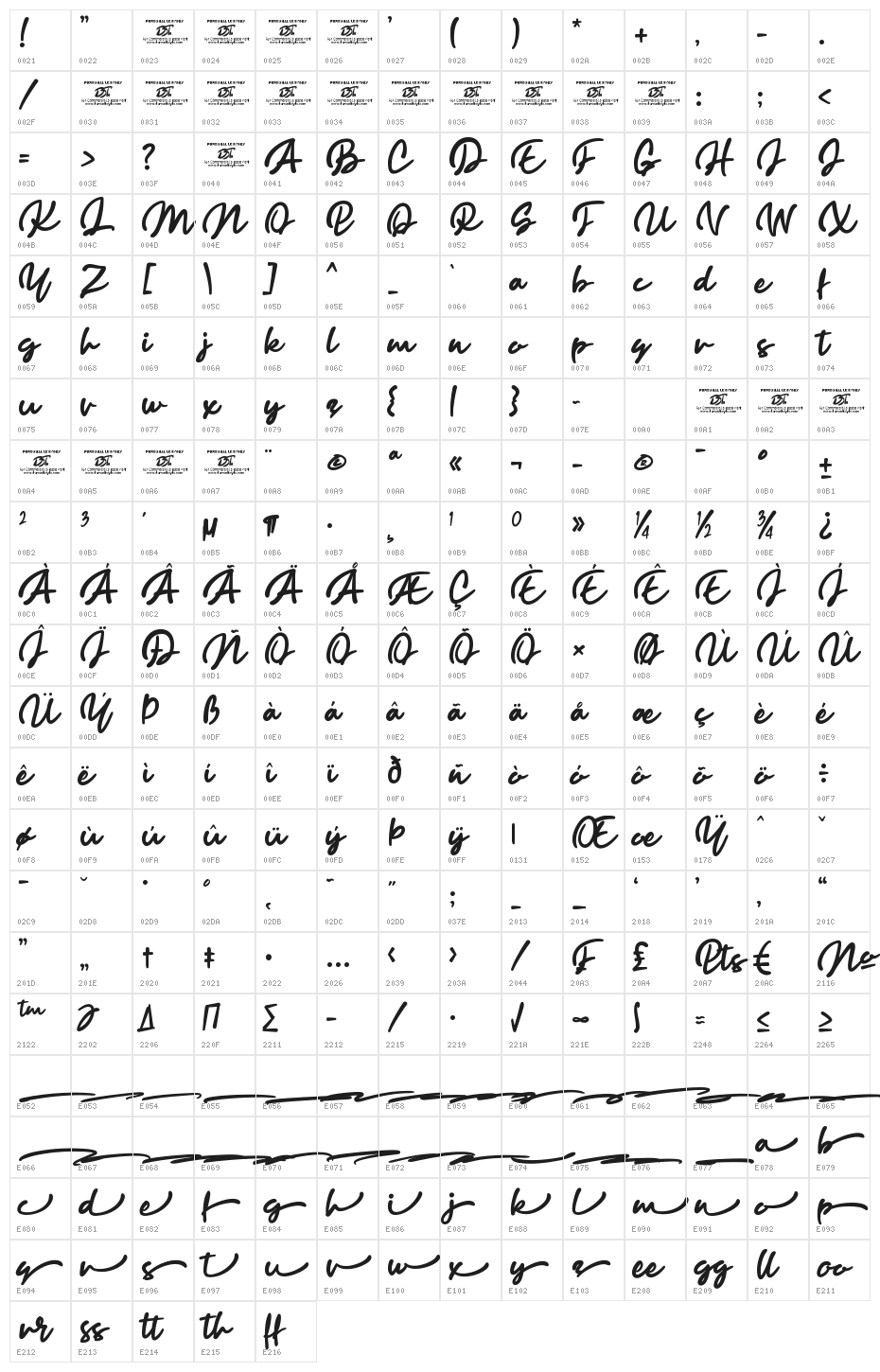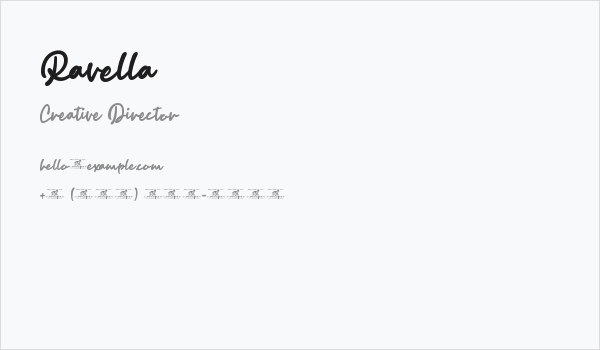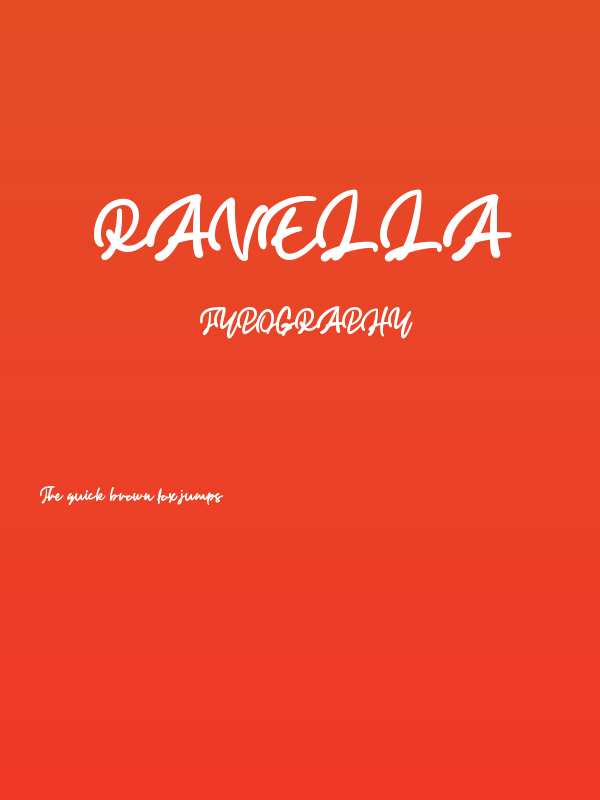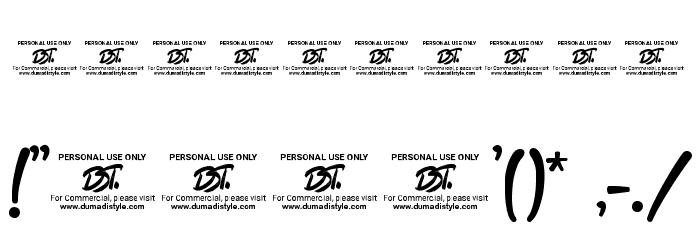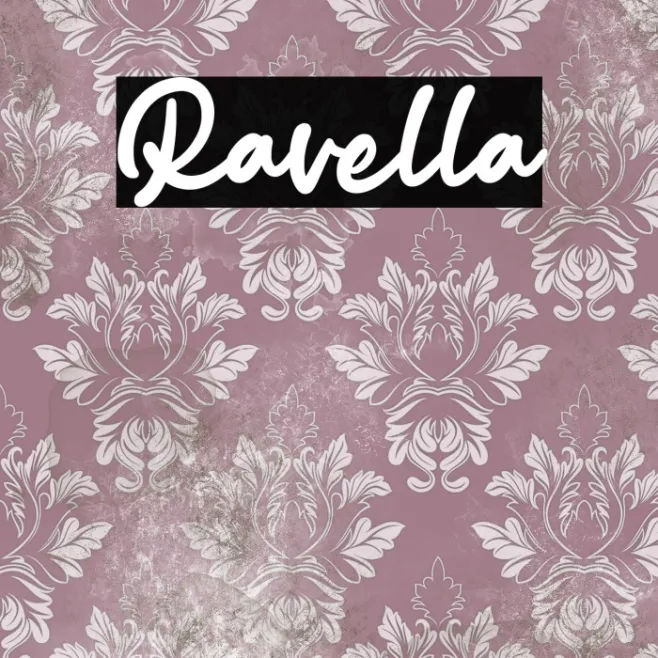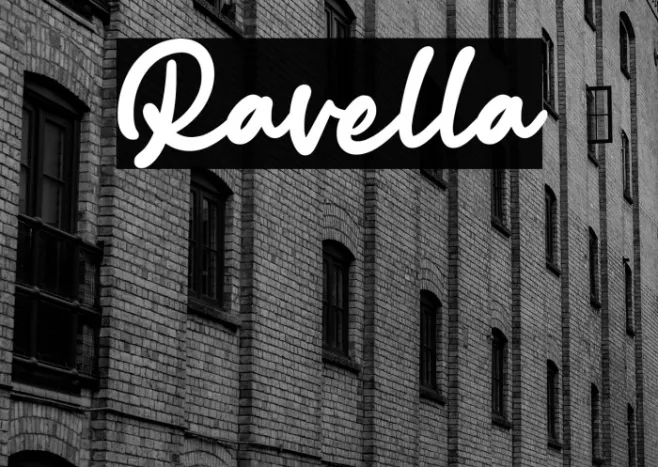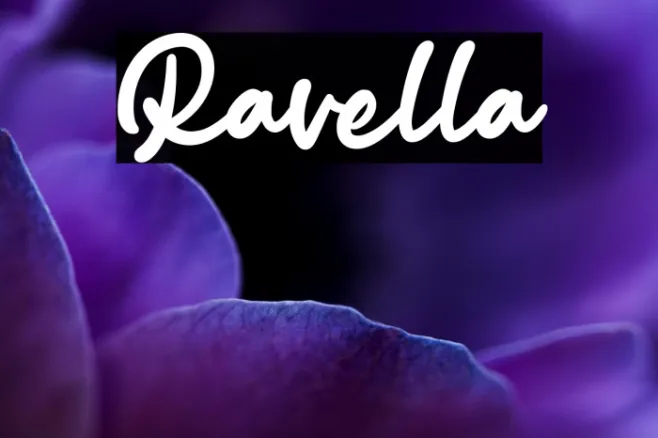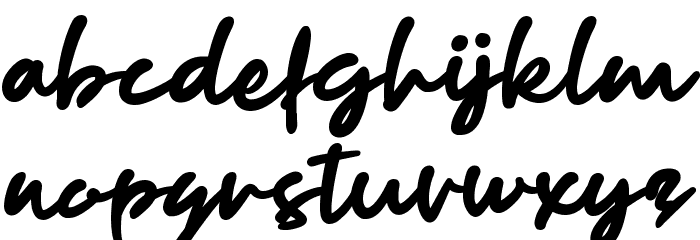
Ravella Font
Ravella Description
This font features a bold and expressive script style with a flowing, cursive design. The characters are interconnected, creating a sense of movement and elegance. The uppercase letters are slightly more ornate, with flourishes that add a touch of sophistication. The lowercase letters maintain a consistent flow, enhancing readability while retaining a stylish appearance. The numbers and special characters are designed to match the overall aesthetic, ensuring a cohesive look across all text. This font is ideal for projects that require a personal, handwritten touch, such as invitations, greeting cards, or branding materials.
| Proposed Projects | Ideal for invitations, greeting cards, branding, and personal projects. |